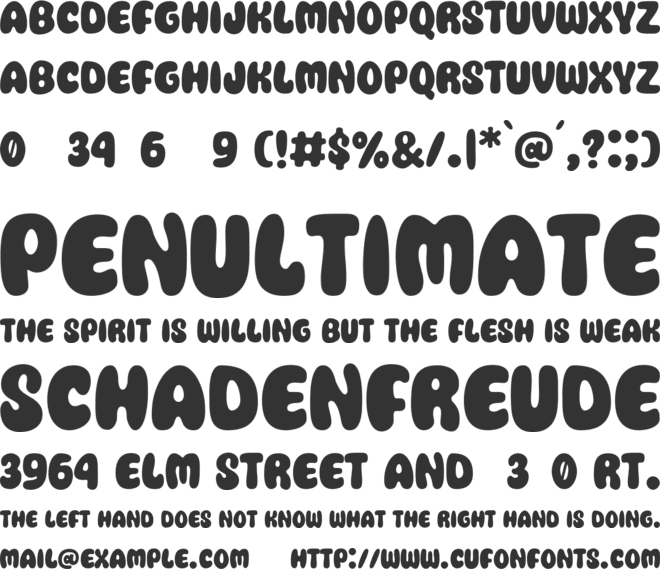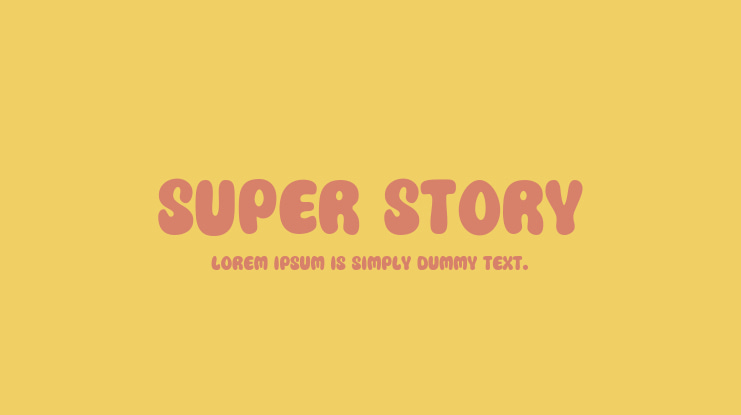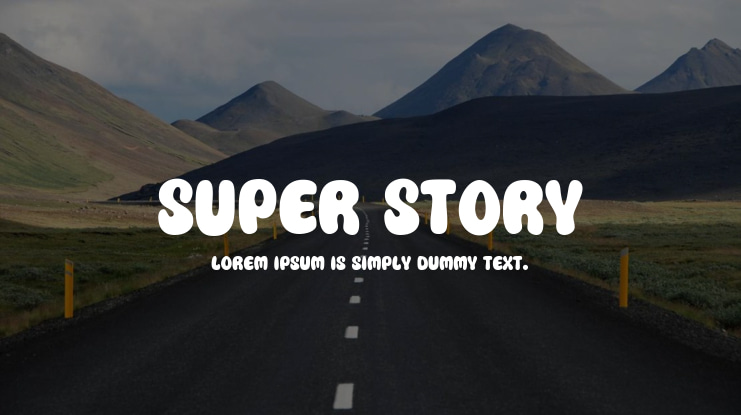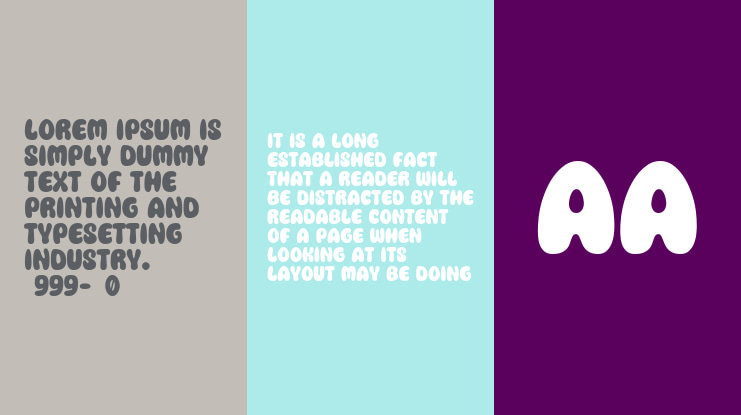
Super Story Font
This font is for PERSONAL USE ONLY!.If you want to use this font for commercial purposes, you will need to purchase a commercial license. You can purchase a commercial license at https://nhfonts.etsy.com/listing/1840724484/super-story-fontTell your story with Super Story, a bubbly and casual font that's bursting with personality. Its rounded, playful characters evoke a sense of fun and adventure, making it the perfect choice for projects that aim to capture the imagination. From storybooks and comics to playful branding and social media graphics, Super Story adds a touch of whimsy and charm.
Super Story font preview